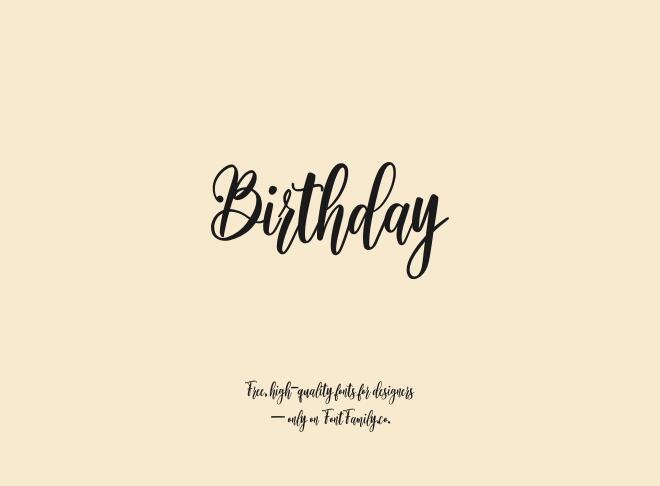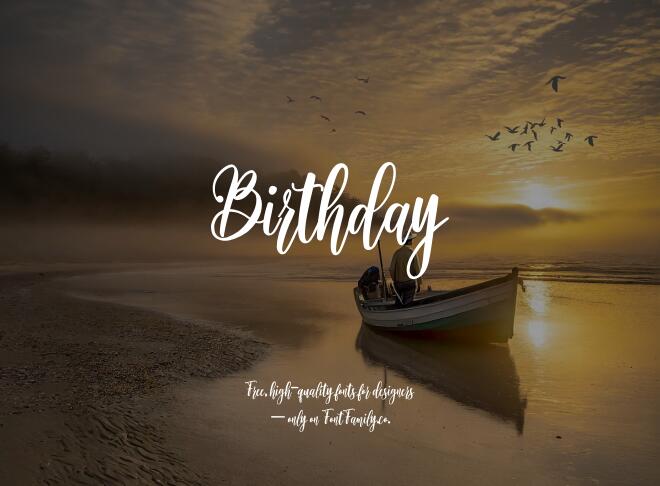
Birthday Font, designed by the Happy Type Foundry, is a playful and decorative handwritten font that captures the spirit of celebration. With its lively curves and whimsical letterforms, this font is the perfect choice for birthday invitations, greeting cards, and festive banners. Its hand-drawn look gives a personalized touch, making any design feel more intimate and fun. Compared to similar fonts, Birthday Font stands out with its unique mix of creativity and legibility. Its characters are designed to be easily readable, even at smaller sizes, making it versatile for different design contexts. Whether you're creating a birthday card for a loved one or designing a banner for a party, Birthday Font will add a festive and joyful vibe to your designs.